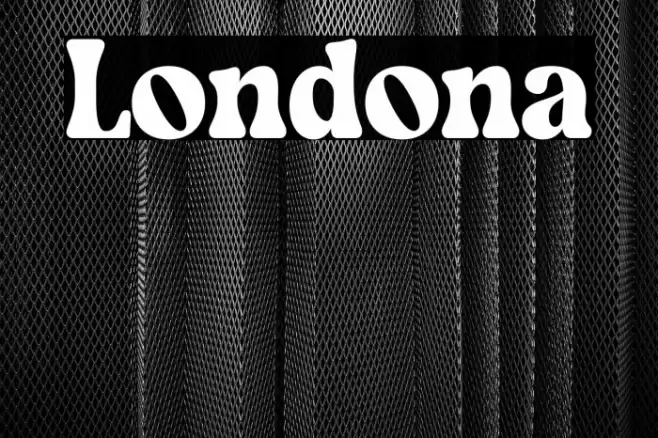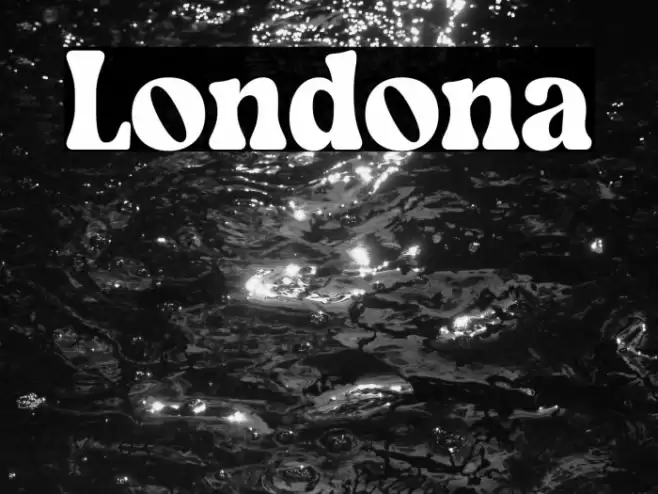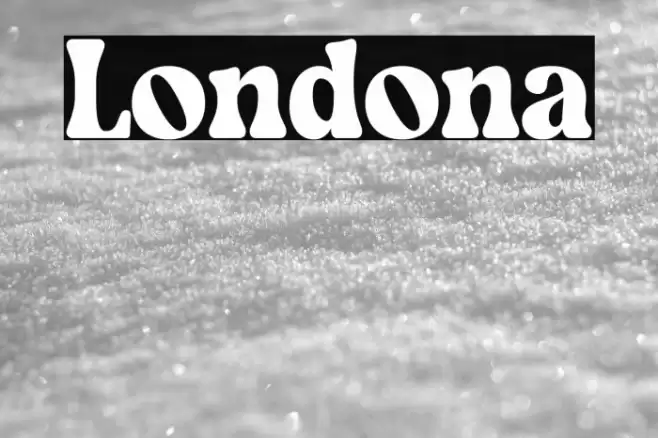
Londona Font
Londona Description
This font features a bold and playful design with a strong presence. The characters are rounded with a slight inward curve, giving them a unique and whimsical appearance. The strokes are thick and consistent, providing a robust and solid look. The font maintains a uniform weight throughout, ensuring readability while adding a touch of fun and creativity. The numbers and special characters are equally bold, complementing the overall style. This font is ideal for projects that require a lively and engaging typeface.
A bold and playful font with rounded, whimsical characters from Uncategorized fonts.
- Proposed Projects: Ideal for children's books, playful branding, posters, and creative advertisements.
- Overall Style: Playful, Whimsical